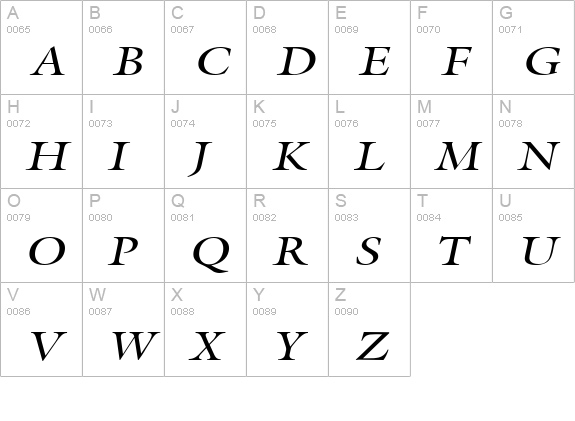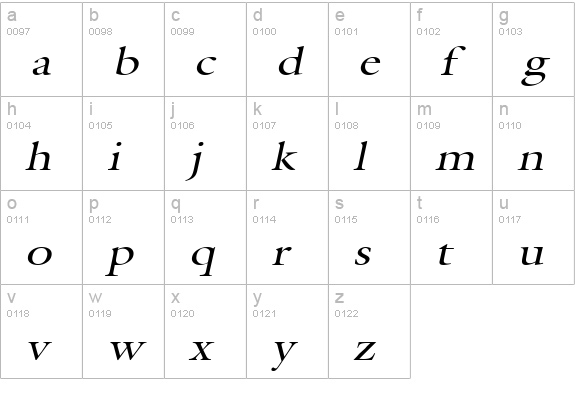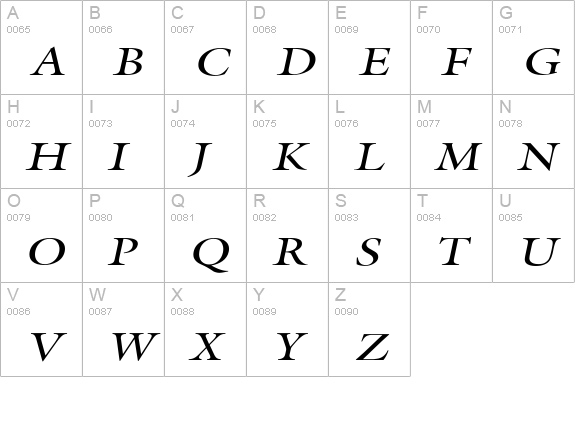
Galant Wide Italic is a distinctive, extended-width, italic variant in the Galant typeface family \xE2\x80\x94 well suited to design and typography projects.
Introducing Galant Wide Italic, an exquisite font that effortlessly combines elegance with modernity. With its sleek and sophisticated design, this typeface is perfect for creating eye-catching headlines, stylish logos, and captivating advertisements. Galant Wide Italic stands out from the crowd with its unique italicized form, adding a touch of flair and personality to any project. Its wide letterforms create a sense of openness and balance, allowing for excellent legibility and readability across various mediums. This font's versatility is unmatched, making it suitable for both print and digital applications. Whether you're designing a high-end fashion magazine, a trendy website, or a chic branding package, Galant Wide Italic will elevate your designs to the next level. In addition to its aesthetic appeal, Galant Wide Italic is also free to download at FontsMarket.com, making it accessible to designers and creatives worldwide. This free availability allows you to explore the font's potential without any financial constraints, giving you the freedom to experiment and express your creativity without limitations. Download Galant Wide Italic today from FontsMarket.com and unlock a world of possibilities. Let this font be your trusted companion in creating captivating visuals that leave a lasting impression. With Galant Wide Italic, your designs will exude sophistication and style, captivating your audience and setting you apart from the competition.